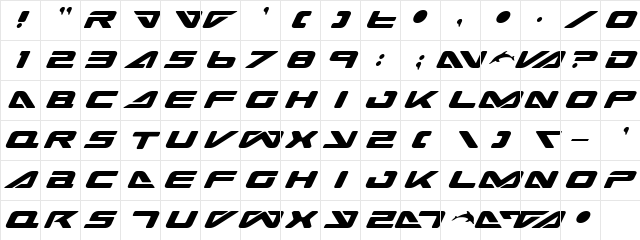
Sea Dog 2001 Italic Italic
Design Context for Sea Dog 2001 Italic Typeface
Sea Dog 2001 Italic is a composed and adaptable typeface that performs quietly and consistently across a wide range of design contexts. Its italic angle brings a sense of urgency and motion to the letterforms.